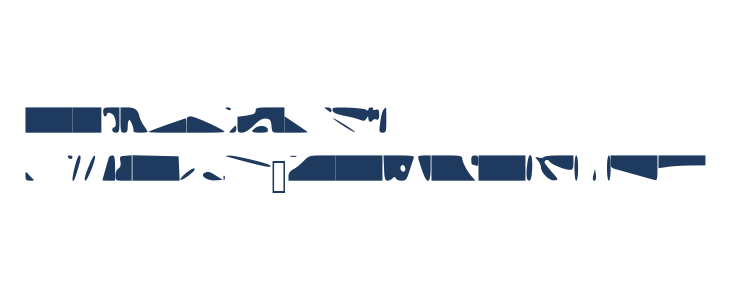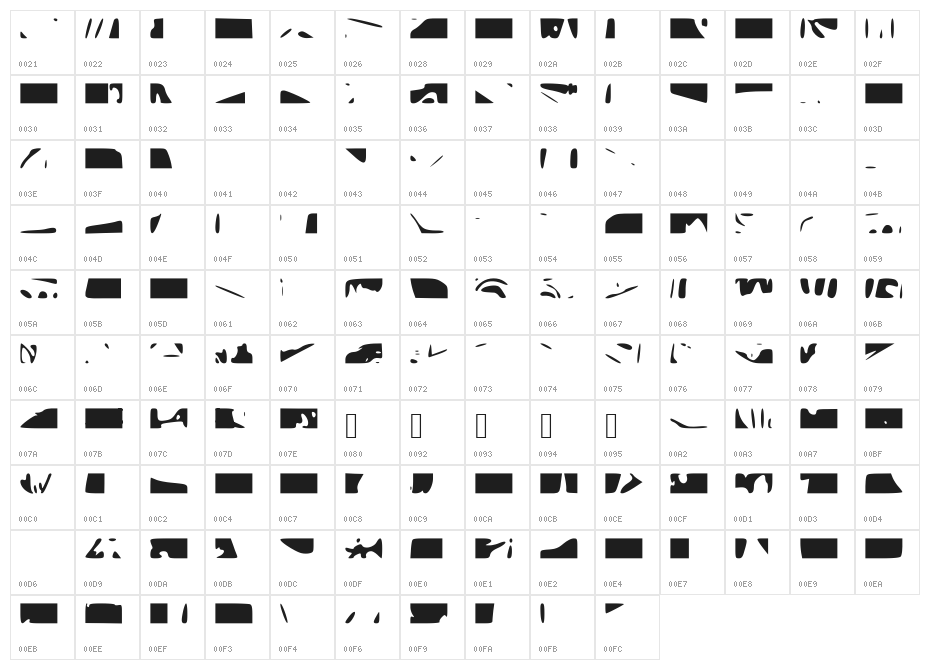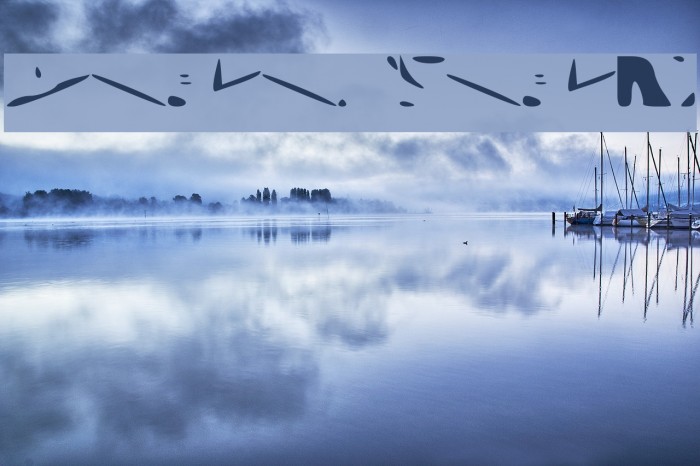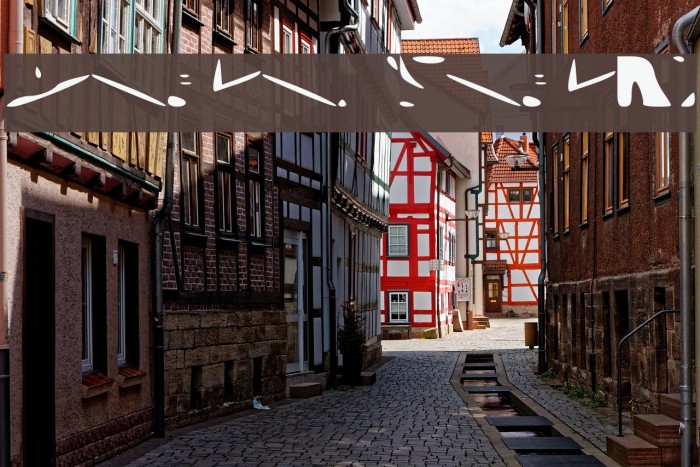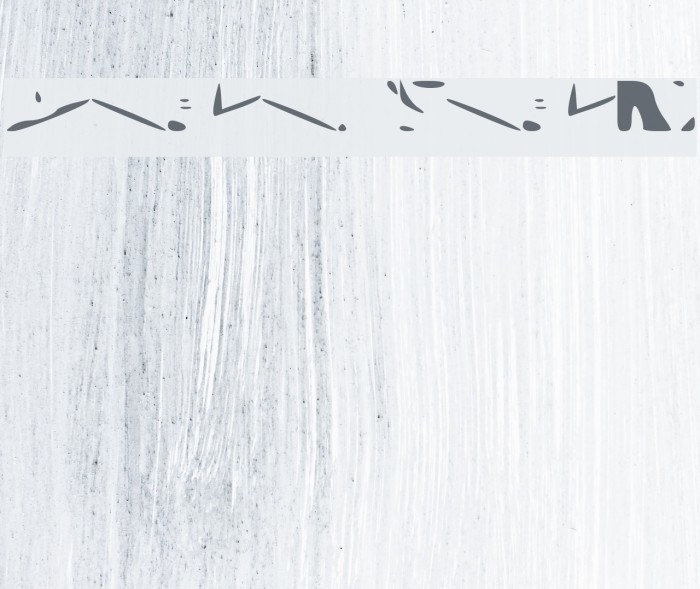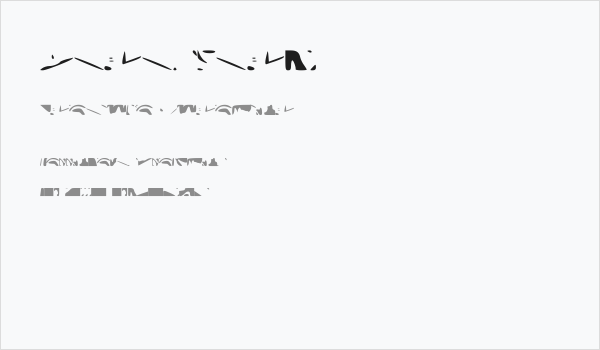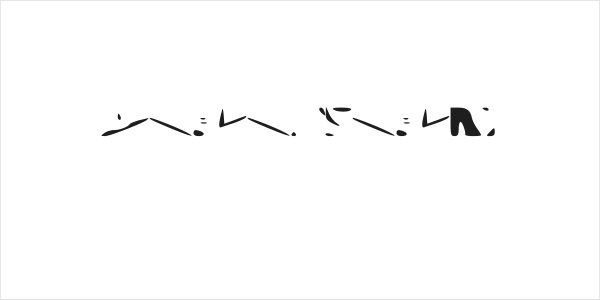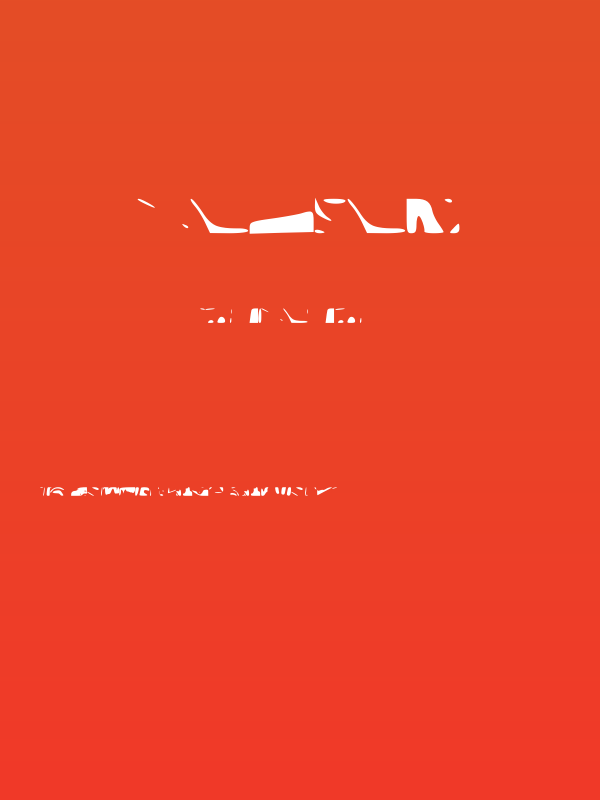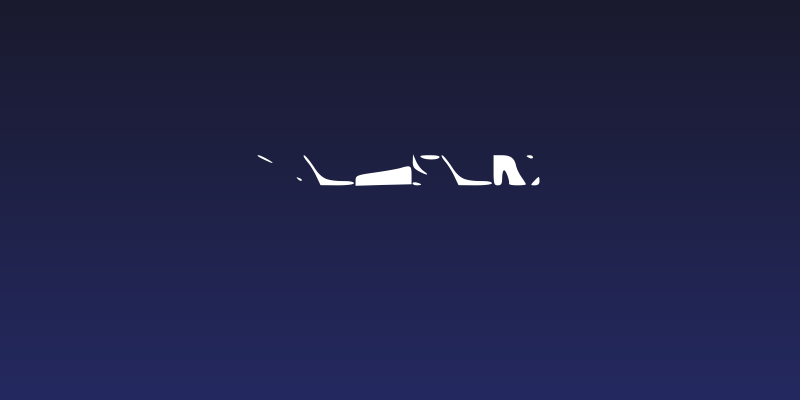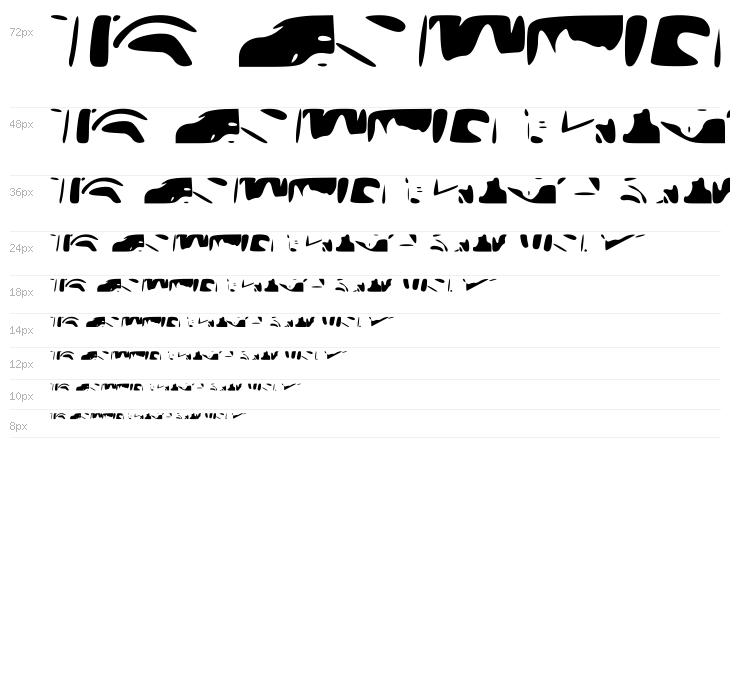
IgaramWar25 Font
IgaramWar25 Description
This font features a highly abstract and fragmented design, with characters appearing as if they are composed of broken or shattered pieces. Each letter and symbol is uniquely distorted, creating a chaotic yet intriguing visual effect. The strokes are irregular, with varying thickness and unexpected angles, giving the font a dynamic and unpredictable appearance. This style is reminiscent of modern art, where traditional forms are deconstructed to create something entirely new and avant-garde. The font's unconventional nature makes it a standout choice for projects that aim to capture attention and convey a sense of modernity and innovation.
Overall StyleModern, Avant-Garde
Use CaseLogos, Headlines, Artistic Displays
Proposed ProjectsIdeal for artistic projects, modern art exhibitions, edgy branding, and experimental design work.